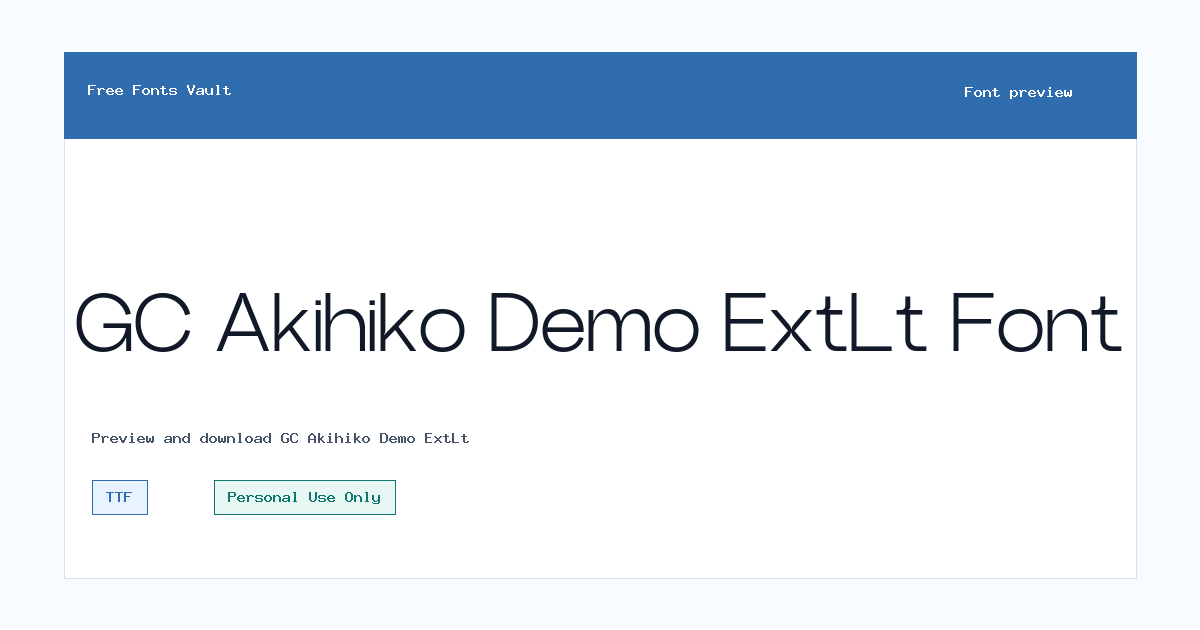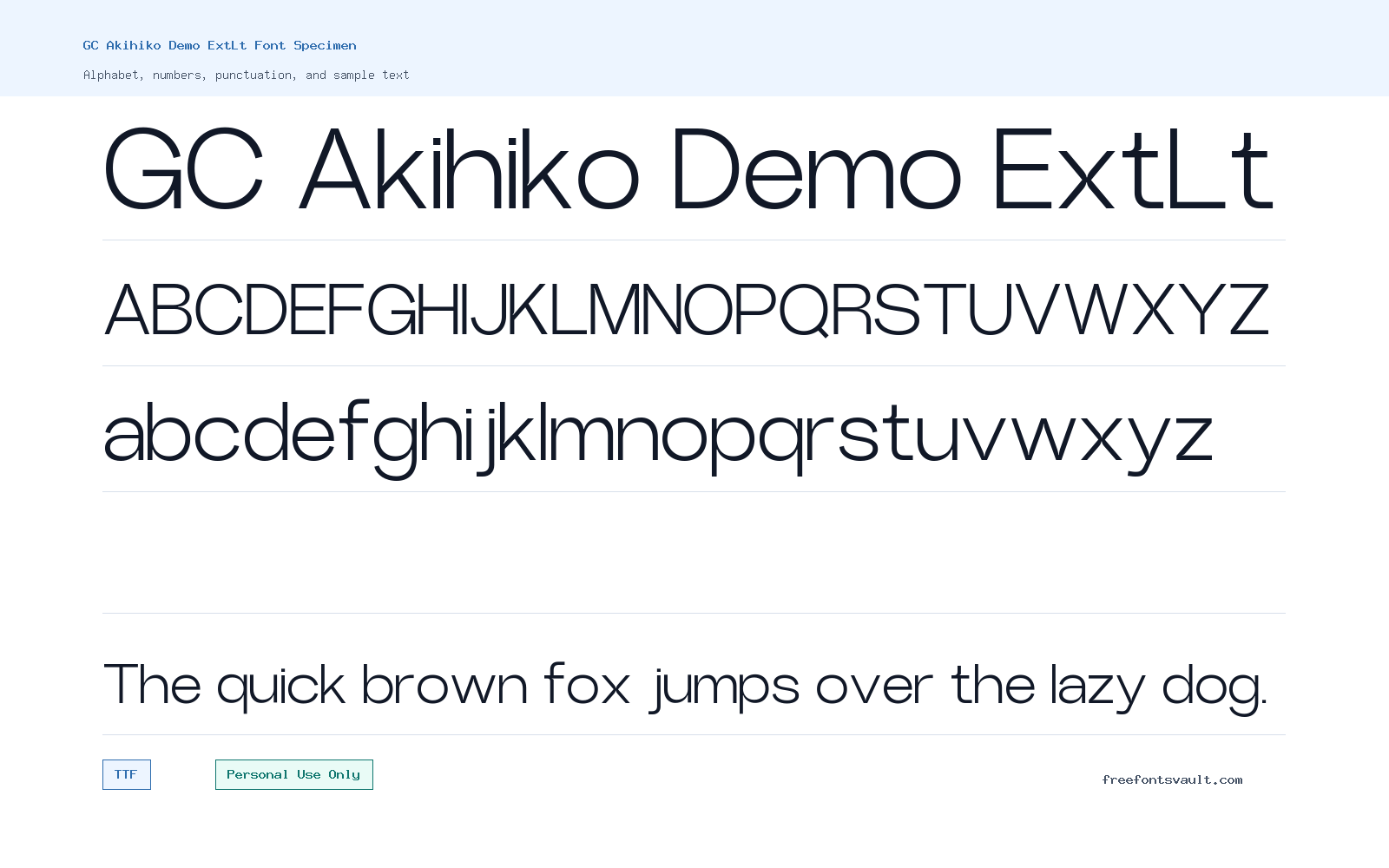
GC Akihiko Demo ExtLt
GC Akihiko Demo ExtLt is a light, clean sans serif font made for testing elegant typography in headlines, mockups, and visual design drafts.
About GC Akihiko Demo ExtLt
GC Akihiko Demo ExtLt is the ExtraLight demo style from the GC Akihiko family. Its thin stroke weight gives text a calm, refined look, especially when used at larger sizes where the letterforms have enough space to breathe. The font is listed as a normal-style TTF with a light weight, so it is best treated as a display or presentation typeface rather than a heavy body-text workhorse. If you are building a layout with soft contrast, minimal spacing, and a modern editorial feel, this style can help you test that direction without making the design look crowded.
Because this is an extra-light sans serif, the most important thing to test is readability. Thin fonts can look polished in logos, poster titles, fashion-style headings, portfolio covers, packaging studies, and web hero mockups, but they may lose clarity at small sizes or on low-contrast backgrounds. Try it first in the preview box with your real words: brand names, short headings, menu labels, and social post text. Increase letter spacing slightly if the text feels too tight, and avoid placing it over busy images unless you add enough contrast behind the letters.
• Extra-light sans serif appearance suited to clean display typography and refined short text.
• Works best when given generous size, spacing, and contrast rather than being forced into dense paragraphs.
• A practical choice for testing minimalist headings, logo drafts, poster titles, portfolio covers, and web hero layouts.
• Logo concepts and wordmark drafts where a thin, quiet sans serif tone is useful.
• Poster titles, event graphics, cover layouts, and social media designs with short text.
• Website mockups, landing page hero text, navigation studies, and portfolio headings.
• Fashion, beauty, lifestyle, architecture, or editorial-style design tests that need a light sans serif voice.
• Presentation slides and branding moodboards where the typography should feel clean without becoming heavy.
Use GC Akihiko Demo ExtLt where the text can stay large, clear, and uncluttered. It can look elegant in a logo sketch or poster headline, but the extra-light weight needs contrast. Pair it with a more readable text face for paragraphs, captions, and interface copy. A neutral sans serif, humanist sans serif, or simple serif can balance the thin display style without competing with it. For web mockups, test it on both light and dark backgrounds and check the result on smaller screens before committing to the look.
What kind of font is GC Akihiko Demo ExtLt?
It is a sans serif demo font in an extra-light style. The thin weight makes it more suitable for short display text than long paragraphs.
What should I pair with GC Akihiko Demo ExtLt?
Pair it with a sturdier, highly readable font for body text. A clean sans serif or simple serif can help keep the layout balanced while GC Akihiko Demo ExtLt handles the main heading or logo-style text.
Is this font good for body text?
It is better for headings and short text. The extra-light weight may be too delicate for long reading, small captions, or low-contrast layouts.